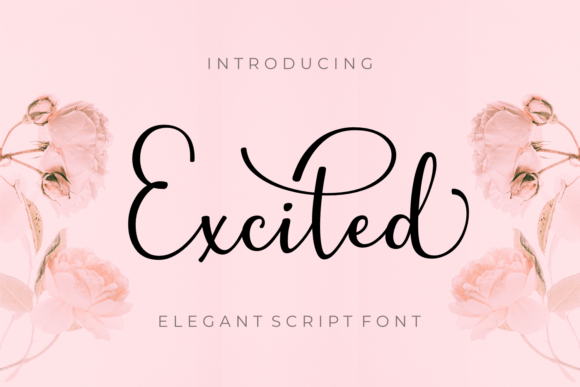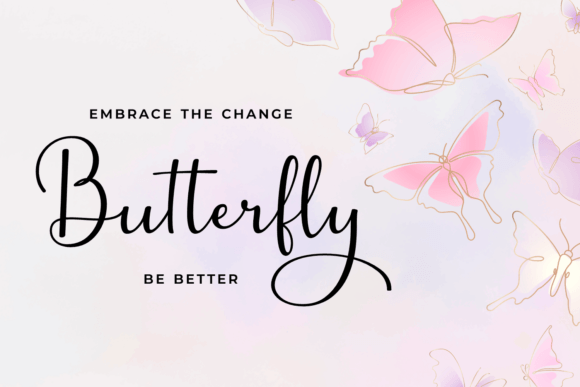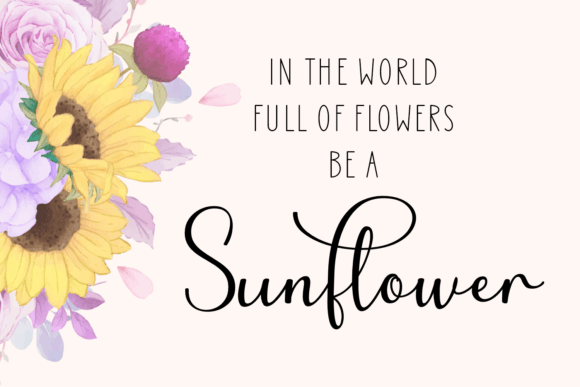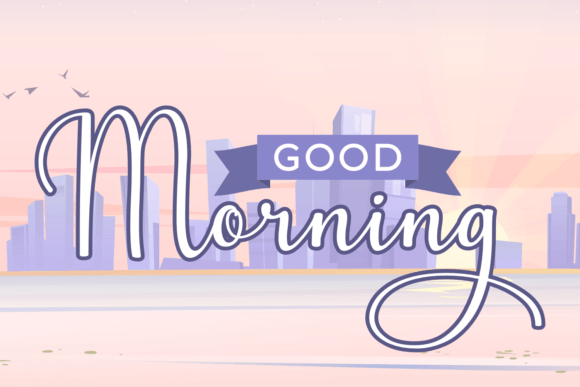
Adding a Touch of Romance to Your Creations
There’s nothing quite like the feeling of holding a beautifully designed invitation or card in your hands, the words dancing across the page in a delicate script that seems to whisper sweet nothings to your heart. It’s a moment of pure joy, a moment that makes all the hard work worth it.
That’s exactly what the Excited Font is designed to bring to your creations – a touch of elegance, a dash of romance, and a whole lot of excitement. This beautiful script font is perfect for adding a personal touch to your invitations, cards, logos, quotes, and crafting projects. With its thin, delicate lines and flowing curves, Excited Font is the perfect choice for designers looking to add a touch of whimsy and charm to their work.
Excited Font Key Features
- Font Family: Excited Font is a unique, high-energy font family designed to convey excitement and enthusiasm.
- Character Set: Includes over 200 characters, including uppercase and lowercase letters, numbers, punctuation marks, and special characters.
- Unique Characteristics: Features a dynamic, hand-drawn feel with subtle irregularities and variations in letterforms, giving it a distinctive and energetic personality.
Excited Font Review
I recently had the chance to work with the Excited Font and I have to say, it’s a mixed bag. On the one hand, I love how ✨ energetic and playful it feels. The font’s design is quite unique, with bold lines and a quirky charm that’s perfect for titles and headings.
The font’s versatility is also a major plus, as it can be used for a wide range of applications, from digital products to print materials. The Excited Font is particularly well-suited for modern and trendy designs, and its readability is quite good even at smaller sizes.
However, I do have some reservations about the font’s limitations. ⚠️ In my opinion, the font’s over-the-top design can sometimes be a bit too much, making it difficult to read in large blocks of text. Additionally, the font’s limited character set can make it challenging to work with for longer texts.
Key Points:
- ✨ Energetic and playful design
- ✨ Versatile and suitable for modern designs
- ⚠️ Can be overwhelming in large blocks of text
- ⚠️ Limited character set
Overall, I think the Excited Font is a great choice for designers who want to add a touch of whimsy and excitement to their projects. However, it may not be the best fit for more formal or traditional designs.
Practical Application Guide for Excited Font
For best results, use Excited Font in headings and titles to create a sense of excitement and energy. You can also use it in body text to add a playful touch.
For a more dramatic effect, use Excited Font in bold or italic styles to add emphasis to your text.
Use Excited Font in headings and titles to create a sense of excitement and energy, and in body text to add a playful touch.
Tips for Getting the Most Out of Excited Font
Use Excited Font sparingly to avoid overwhelming your audience. Limit its use to headings and titles, or use it in small sections of body text.
Pair Excited Font with a clean and simple design to create a visually appealing contrast.
Experiment with different font sizes and colors to find the perfect balance for your design.
Excited Font is perfect for:
Marketing materials, such as brochures and flyers.
Event invitations and announcements.
Product packaging and labels.
Website headers and titles.